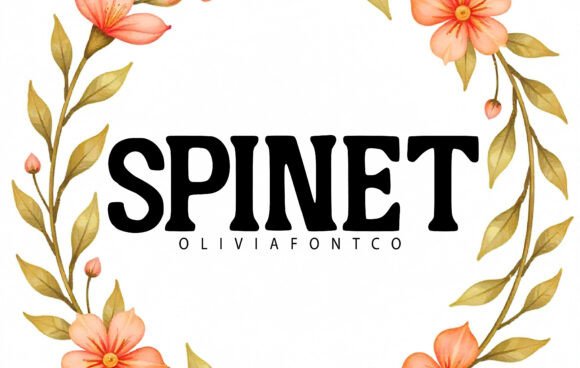
Spinet Font: A Timeless, Vintage-Inspired Serif Display Font
In the world of typography, fonts play a crucial role in conveying the tone and personality of a brand, product, or service. Among the numerous fonts available, Spinet Font stands out as a bold, refined, and vintage-inspired serif display font. Its unique blend of strong vertical strokes and soft rounded edges makes it an ideal choice for designers seeking to create a classic yet modern look.
What is Spinet Font?
Spinet is a serif display font that exudes sophistication while maintaining a warm, approachable style. Its balanced proportions and clean curves give it a timeless, polished look, making it perfect for various design applications, including logos, headlines, packaging, book covers, and branding.
The font’s distinct charm lies in its ability to bridge retro nostalgia with modern design sensibilities. Spinet is structured, stylish, and full of personality, making it an excellent choice for designers who want to create editorial layouts, boutique branding, retro-style posters, or elegant signage.
Key Features of Spinet Font
- Bold and Refined: Spinet Font boasts a bold and refined appearance, making it perfect for headlines, titles, and emphasis.
- Vintage-Inspired: The font’s vintage-inspired design gives it a classic, timeless look that’s perfect for brands seeking to evoke a sense of nostalgia.
- Serif Display Font: Spinet is a serif display font, characterized by its small lines or flourishes at the end of the strokes.
- Strong Vertical Strokes: The font features strong vertical strokes that provide a sense of stability and elegance.
- Soft Rounded Edges: The soft rounded edges of Spinet Font give it a warm, approachable feel.
- Balanced Proportions: The font’s balanced proportions ensure that it looks clean and polished.
Uses of Spinet Font
Spinet Font is an incredibly versatile font that can be used in a wide range of design applications, including:
- Logos: Spinet Font is perfect for creating logos that require a bold, yet refined appearance.
- Headlines: The font’s bold and vintage-inspired design makes it ideal for headlines and titles.
- Packaging: Spinet Font can be used to create eye-catching packaging designs that stand out on store shelves.
- Book Covers: The font’s classic, timeless look makes it perfect for book covers, particularly for fiction and non-fiction books that require a sophisticated appearance.
- Branding: Spinet Font can be used to create branding materials, such as business cards, letterheads, and brochures.
- Editorial Layouts: The font’s elegant design makes it suitable for editorial layouts, including magazines, newspapers, and online publications.
- Boutique Branding: Spinet Font is perfect for boutique branding, including fashion, beauty, and lifestyle brands.
- Retro-Style Posters: The font’s vintage-inspired design makes it ideal for creating retro-style posters and prints.
- Elegant Signage: Spinet Font can be used to create elegant signage, including menus, billboards, and digital displays.
Benefits of Using Spinet Font
Using Spinet Font in your design projects offers several benefits, including:
- Unique Appearance: Spinet Font has a unique appearance that sets it apart from other fonts.
- Timeless Design: The font’s timeless design ensures that it will remain relevant for years to come.
- Versatility: Spinet Font is incredibly versatile and can be used in a wide range of design applications.
- Elegance: The font’s elegant design makes it perfect for creating sophisticated designs.
- Personality: Spinet Font has a distinct personality that can help bring your designs to life.
Tips for Using Spinet Font
To get the most out of Spinet Font, follow these tips:
- Use it as a Headline Font: Spinet Font is perfect for headlines and titles.
- Pair it with Other Fonts: Experiment with pairing Spinet Font with other fonts to create a unique look.
- Adjust the Size: Adjust the size of the font to create visual hierarchy.
- Use it for Emphasis: Use Spinet Font to draw attention to specific parts of your design.
In conclusion, Spinet Font is a bold, refined, and vintage-inspired serif display font that’s perfect for designers seeking to create a classic yet modern look. Its unique blend of strong vertical strokes and soft rounded edges makes it an ideal choice for various design applications. With its timeless design, versatility, elegance, and personality, Spinet Font is sure to become a staple in your font collection.